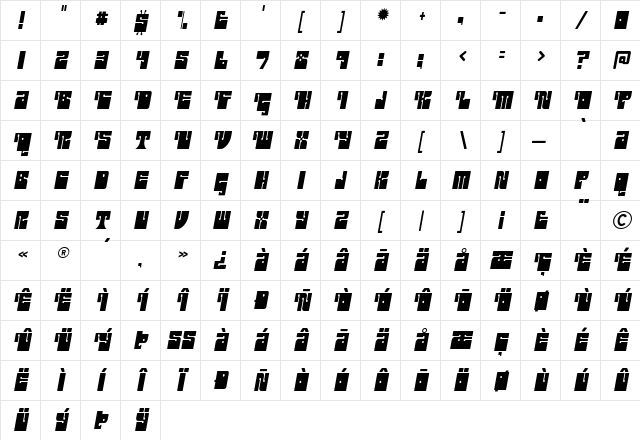
Outright Regular
Design Context for Outright
Outright is a composed and adaptable typeface that performs quietly and consistently across a wide range of design contexts.